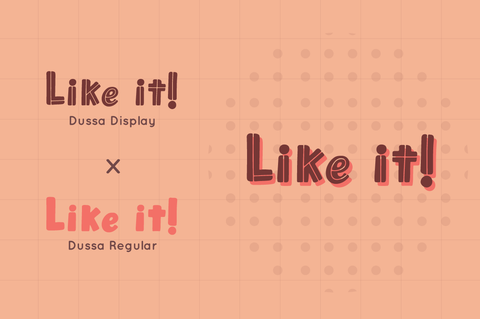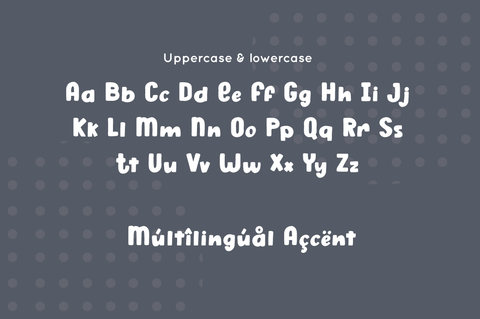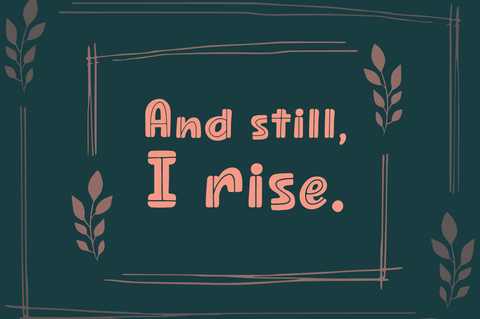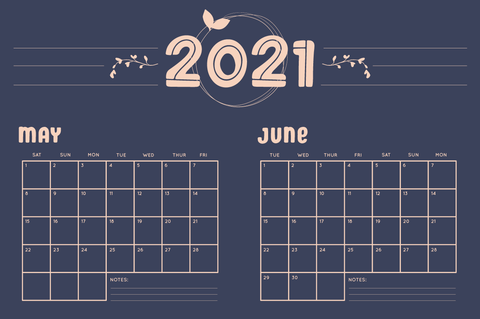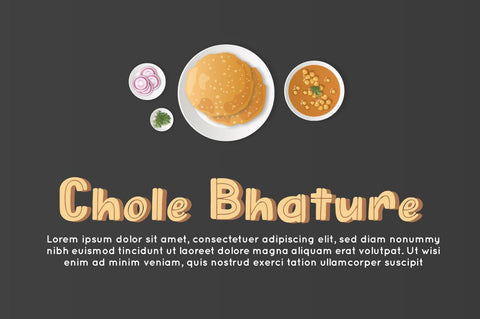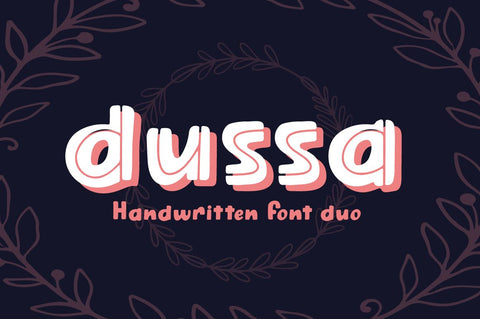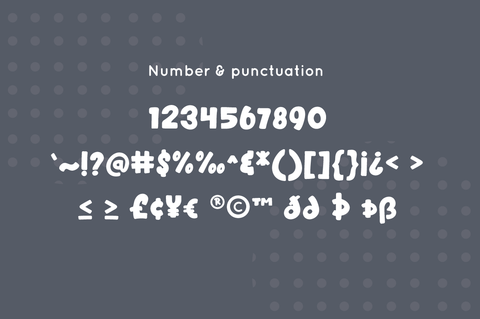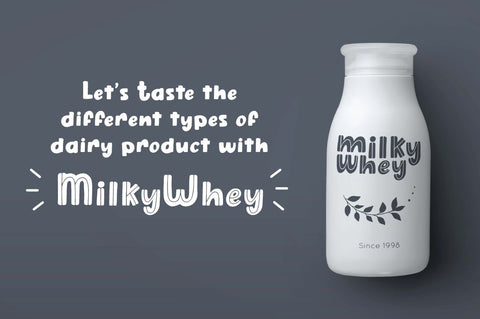
Dussa - Handwritten Font Duo
Dussa is a Handwritten summer font duo, make an amazing combination between Display and Regular style.
Dussa is perfect for summer event, summer party, branding, logo, invitation, quotes, apparel design, product packaging, merchandise,
game titles, cute style design, Book/Cover Title and more.